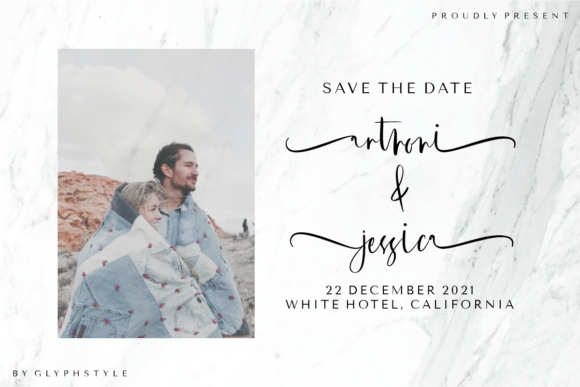
Enter the world of Oishigo Font, a freeform handwritten font that will captivate your designs with its unique style. Each character dances across the page, adding a touch of elegance and charm to your creations.
Born from the creative genius of glyphstyle, Oishigo Font is more than just a font; it's an expression of beauty and style, waiting to be unleashed onto your next project. Whether you're a seasoned designer or just starting, Oishigo Font will help you create designs that leave a lasting impression.
Step into the world of branding and logos, where Oishigo Font shines as a beacon of creativity. Its distinctive style will make your designs stand out from the crowd, leaving a lasting impression on your audience. Craft logos that exude sophistication and elegance, and create brand identities that speak volumes about your company's values.
For those planning their dream wedding, Oishigo Font is your perfect companion. Its delicate strokes and flowing curves will add a touch of romance and elegance to your invitations, decorations, and wedding favors. Your guests will be swept away by the charm of this beautiful font, creating memories that will last a lifetime.
Spread the love on social media with Oishigo Font. Its eye-catching style will make your posts and stories stand out from the noise, capturing the attention of your followers. Create stunning visuals that will have your audience swiping and sharing, eager to see what you'll create next.
Designers, marketers, and creative entrepreneurs, Oishigo Font is your secret weapon for creating captivating advertisements that drive results. Its ability to convey emotions and create a lasting impression will leave your audience captivated, eager to learn more about your products or services.
With Oishigo Font, the possibilities are endless. Whether you're creating marketing materials, brochures, or any other creative project, this font is the key to unlocking your creative potential. Its versatility and boundless charm will transform your designs into works of art, leaving your audience in awe.
So why settle for ordinary when you can have extraordinary? Embrace the beauty of Oishigo Font and unlock a world of creative possibilities. Let your designs shine brighter than ever before and experience the magic that awaits within this enchanting font.